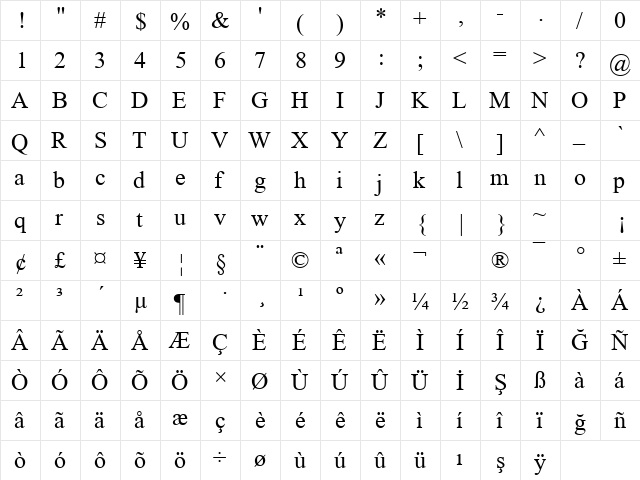
Times New Roman Digiscream Regular
Design Context for Times New Roman Digiscream Typeface
Times New Roman Digiscream takes a measured approach to typography — its balanced proportions and neutral character make it a reliable workhorse for both digital and print work.